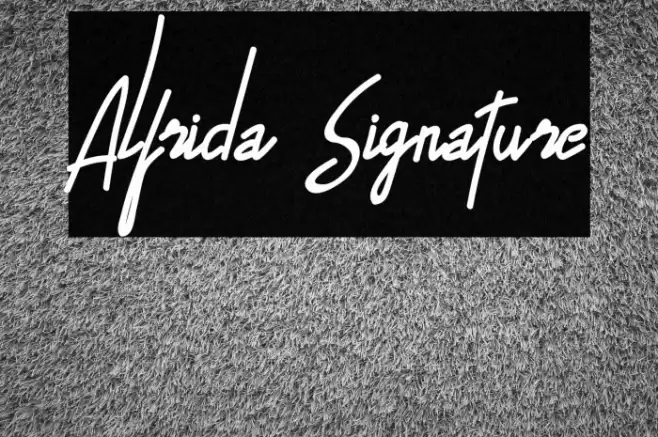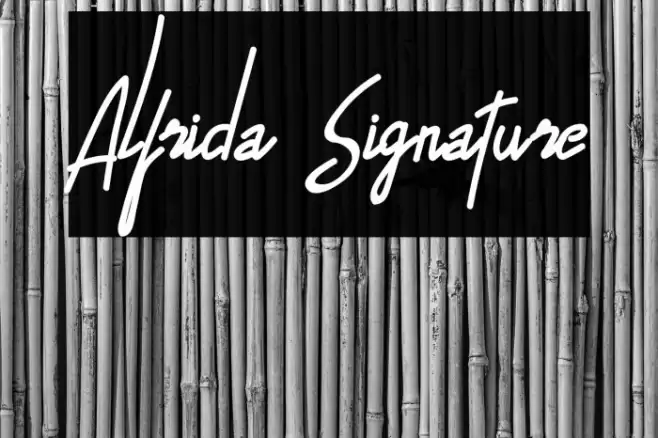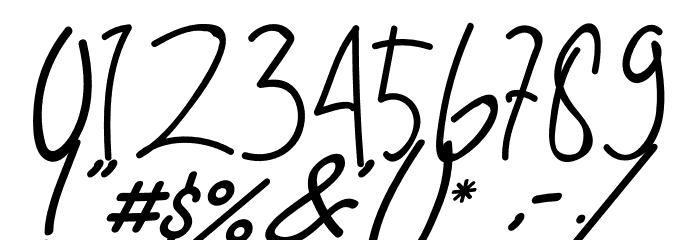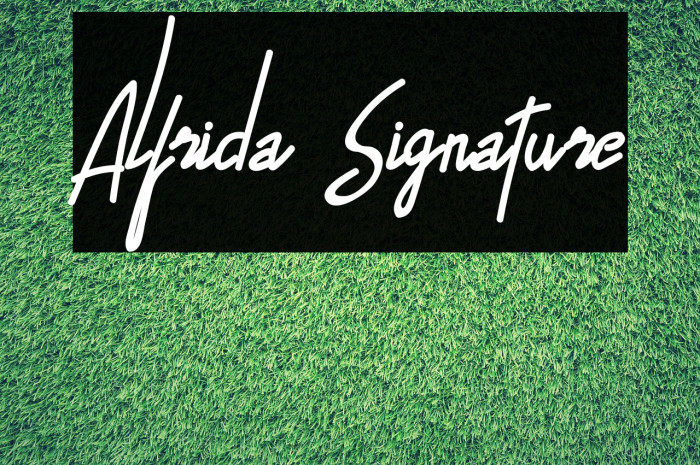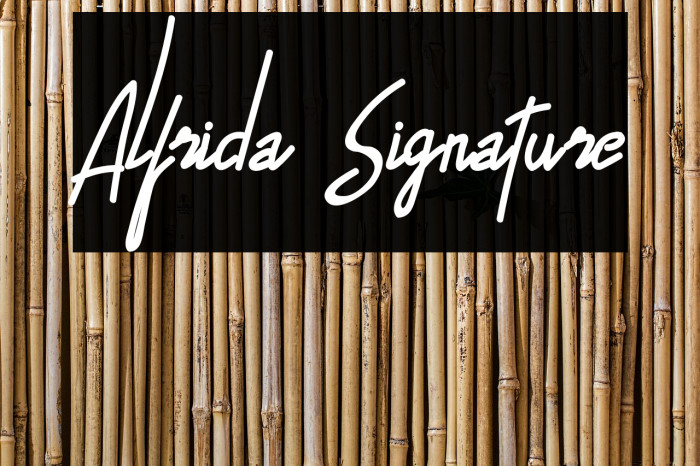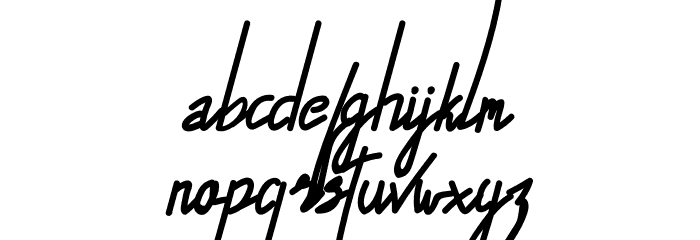
Alfrida Signature Font
Alfrida Signature Description
This font exudes a casual, handwritten style with a fluid and dynamic appearance. The letters are slightly slanted, giving it a natural and personal touch, reminiscent of a signature. The uppercase characters are bold and confident, while the lowercase letters maintain a consistent flow, enhancing the overall cohesiveness. The numerals are distinct and easy to read, complementing the alphabetic characters. Special characters are designed with the same fluidity, ensuring a harmonious look across all elements. This font is ideal for projects that require a personal, human touch, such as invitations, greeting cards, or branding materials that aim to convey warmth and approachability.
A casual, handwritten font with a fluid, signature-like style from Uncategorized fonts.
- Proposed Projects: Ideal for personal branding, invitations, greeting cards, and any project needing a warm, approachable feel.
- Overall Style: Casual, Personal
- Use Case: Logos, Invitations, Personal Branding